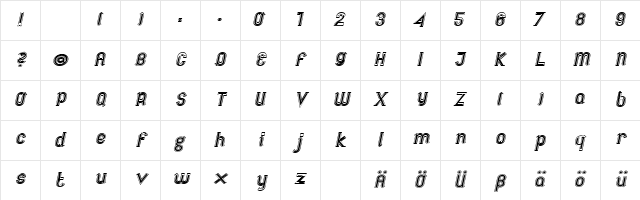
futile extraoutitalic Free Font
futile extraoutitalic
Style: extraoutitalic
Design Context for futile
futile is a composed and adaptable typeface that performs quietly and consistently across a wide range of design contexts. The slanted form adds forward momentum and visual energy.
Pro Tip: Use futile for emphasis, pull quotes, and subheadings where its slanted energy can add rhythm to the layout.